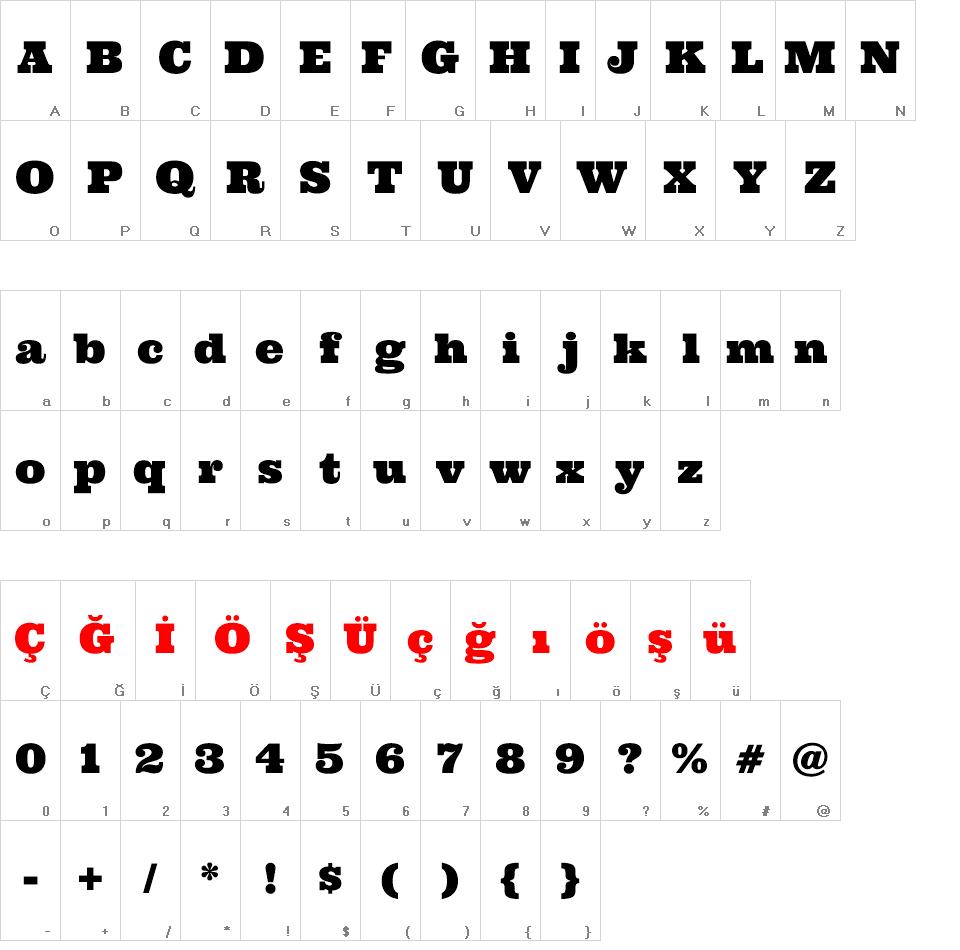
Ultra font
Ultra is an ultra bold slab typeface with nods to wood type styles like Clarendon and Egyptian. Strong and dramatic letterforms for titling, a serious, yet friendly, and easily legible typestyle. Perfect for power headlines and titling for impact.